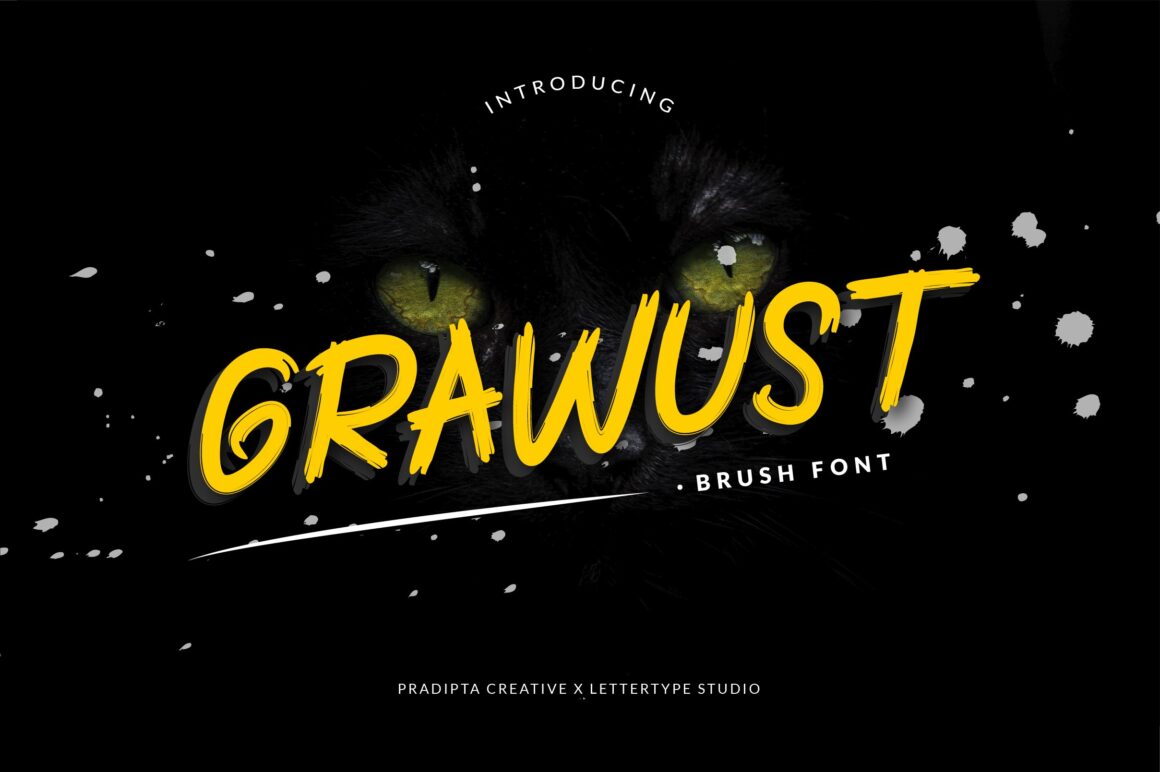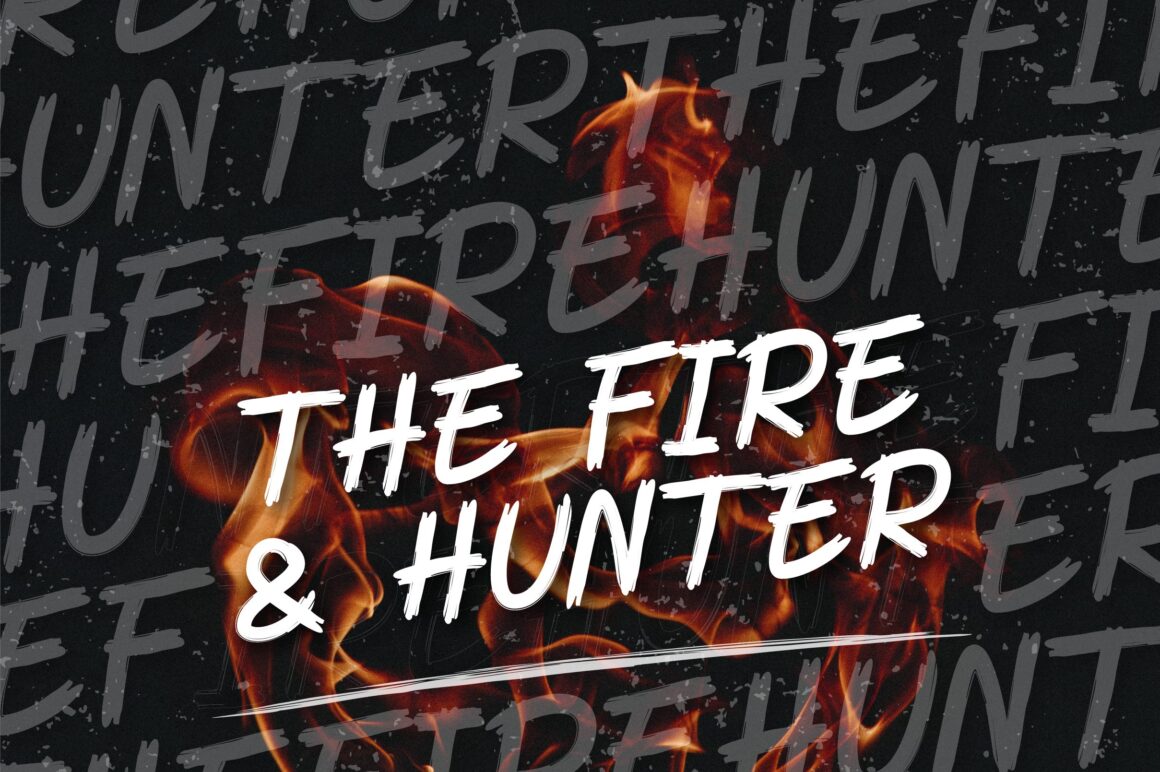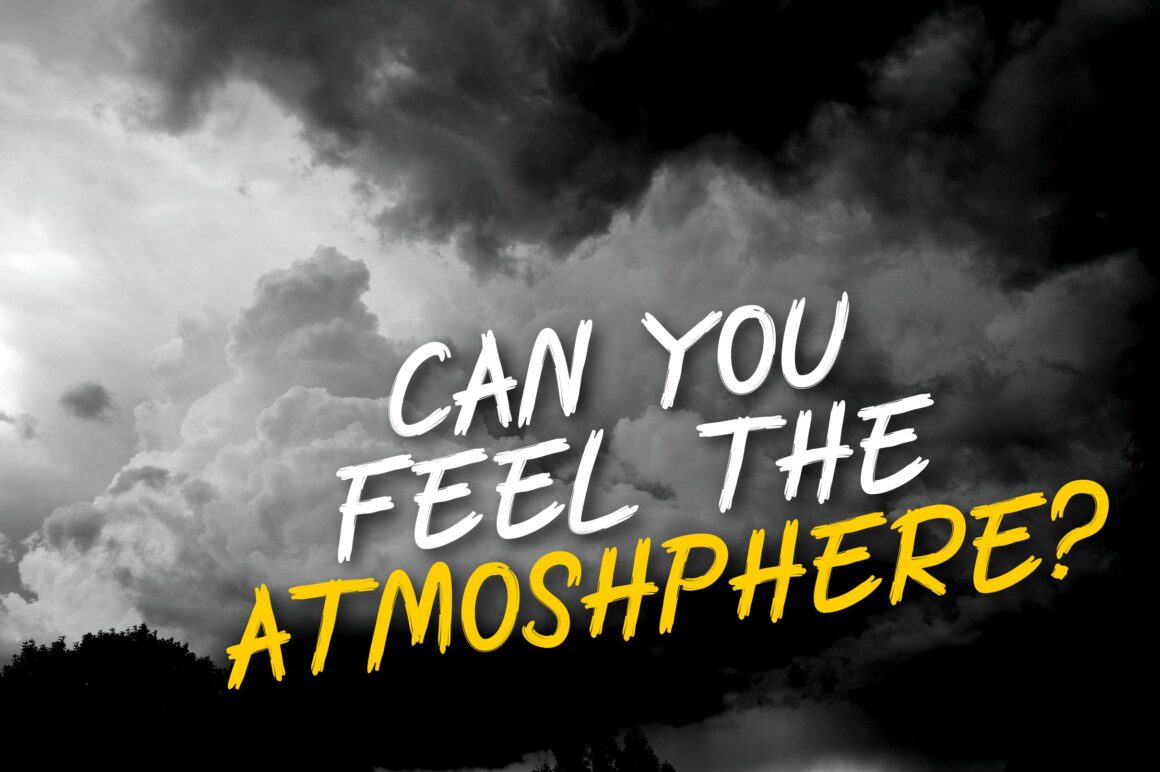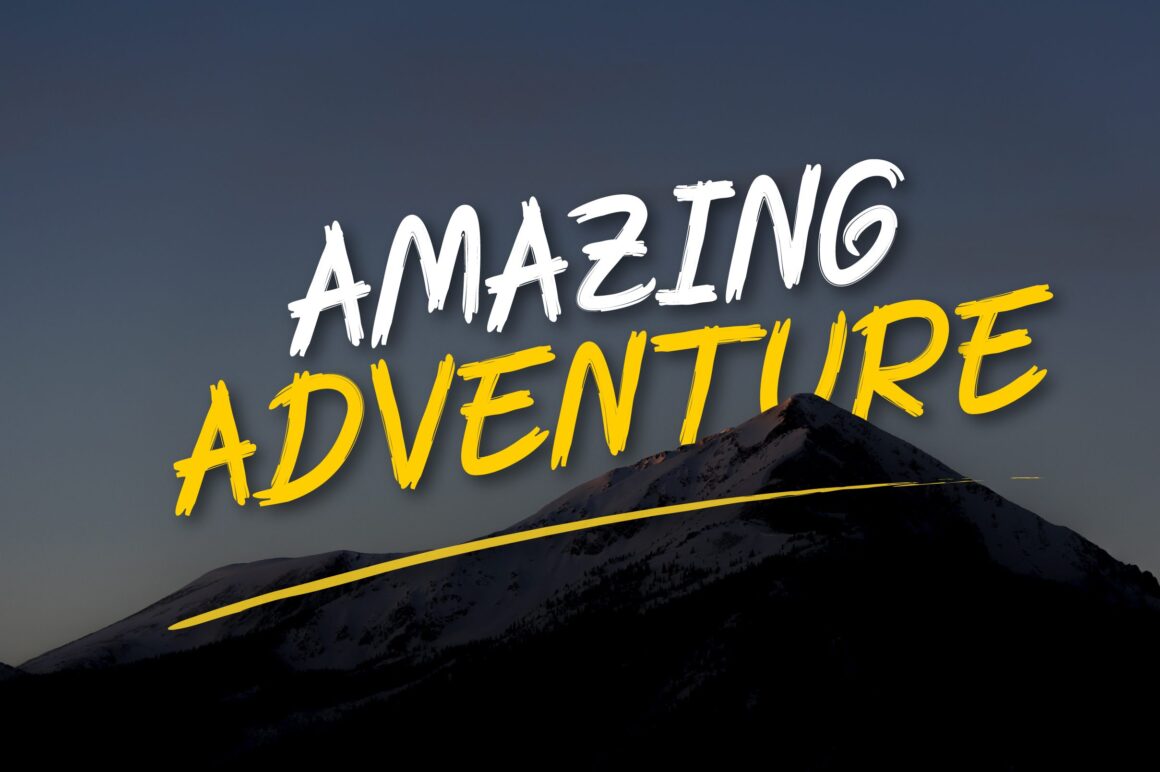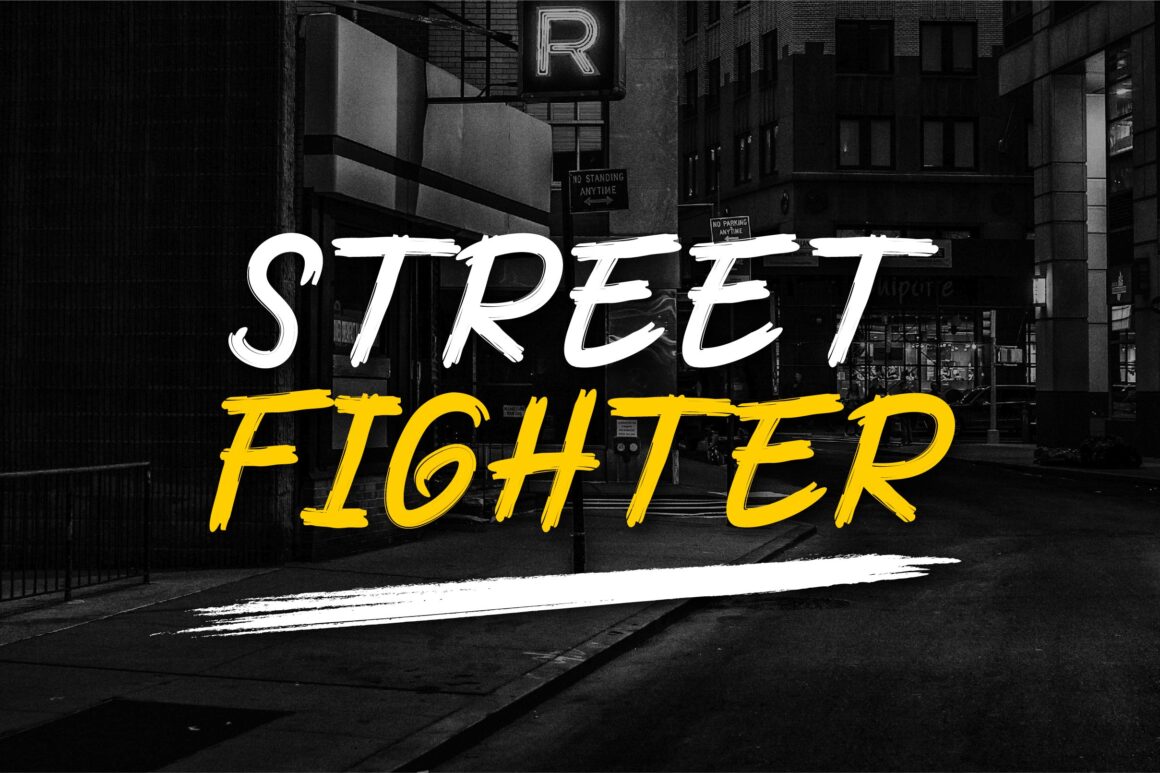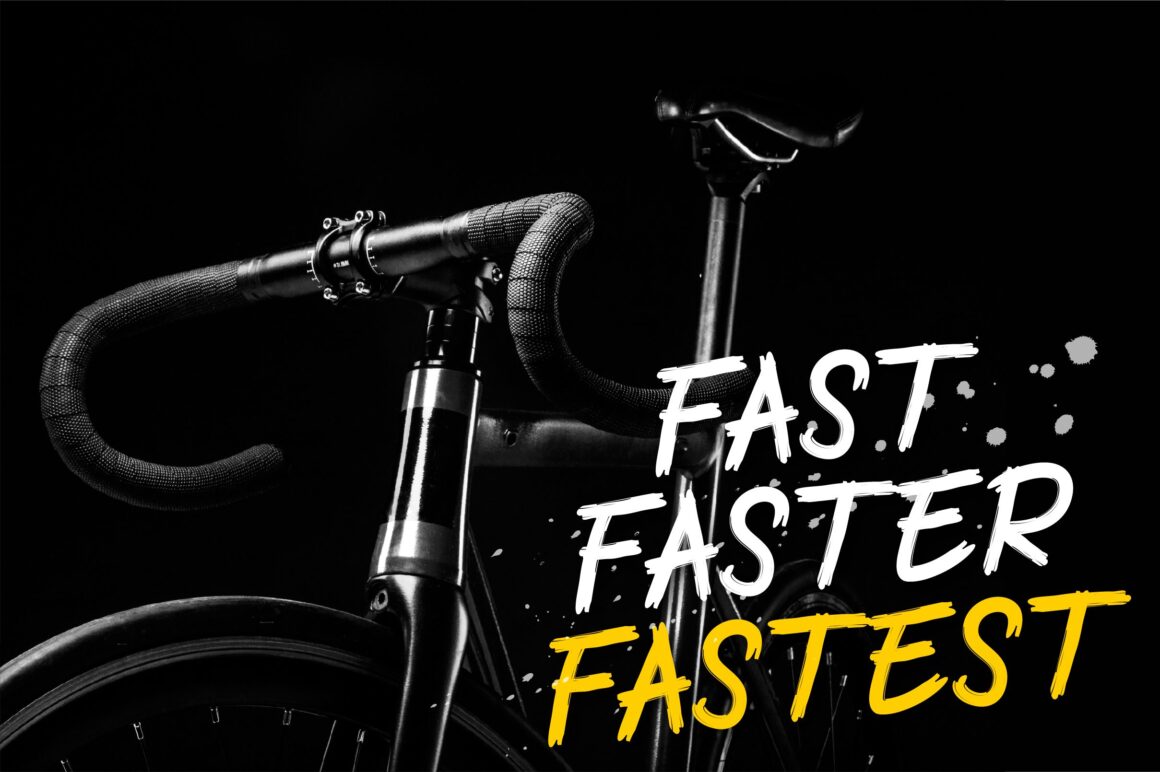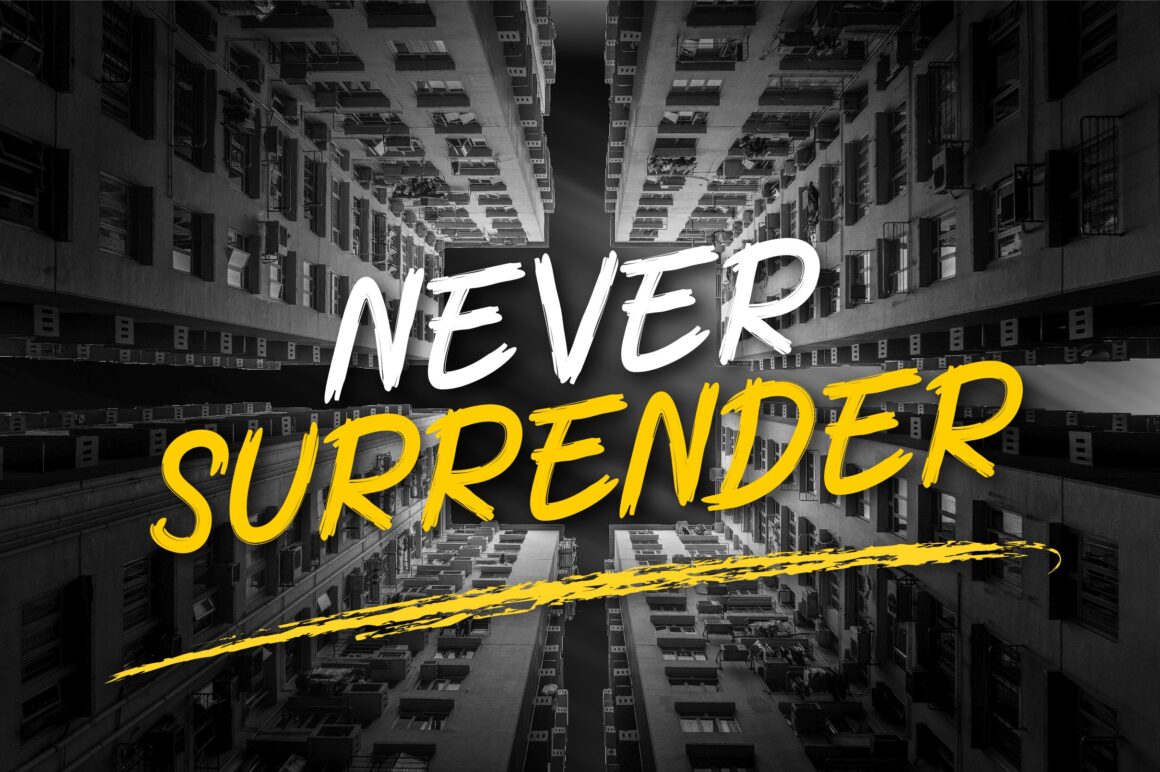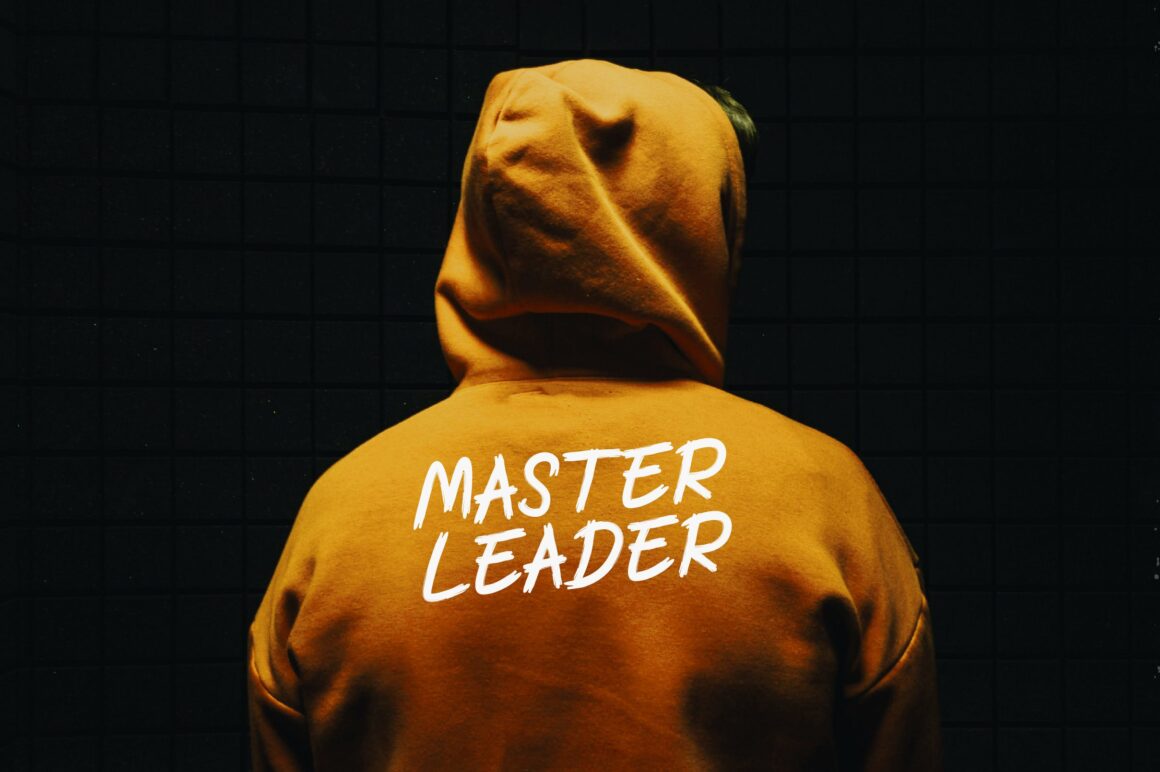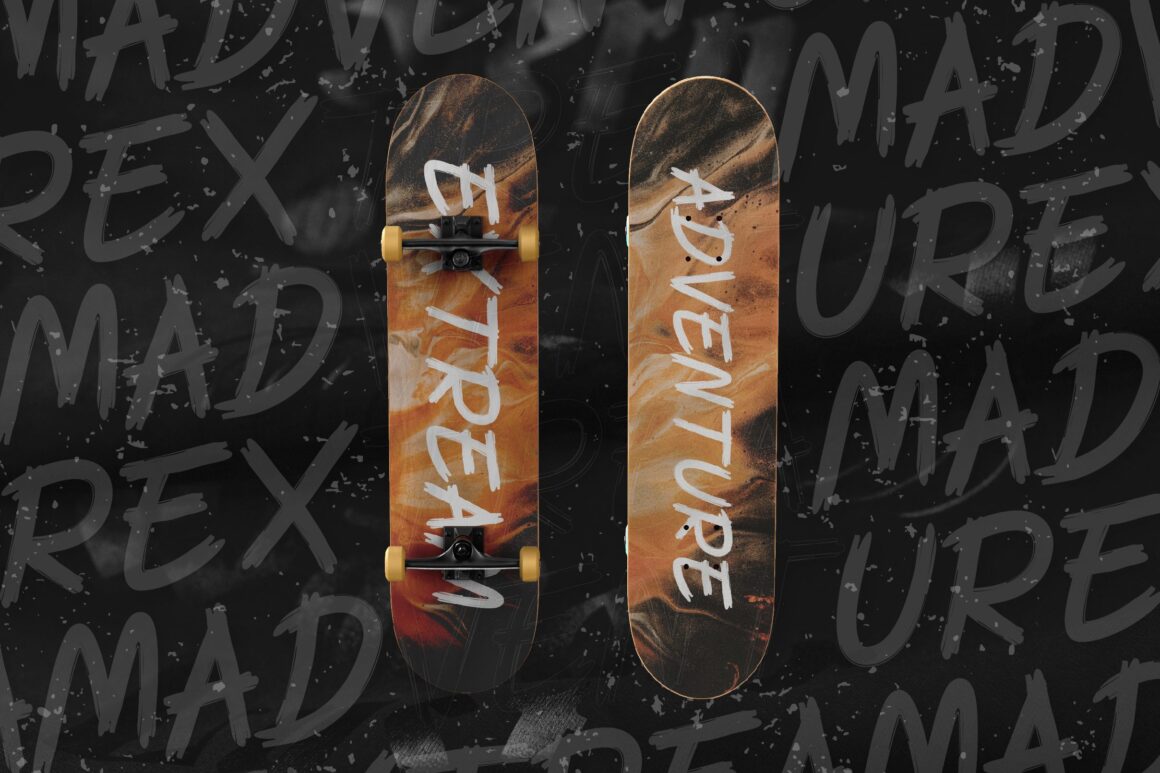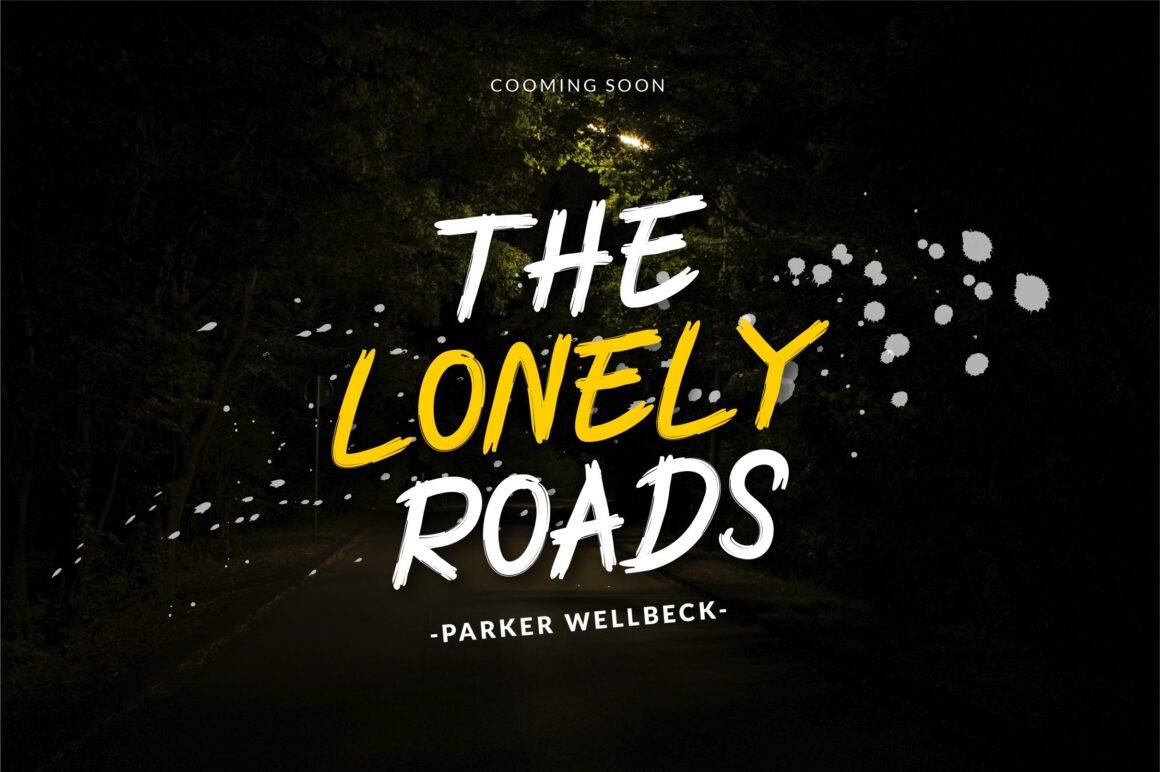
Grawust
Grawust Brush Font is a bold and energetic typeface designed with inline striping and a modern brush style. Its eye-catching strokes make it perfect for adding power and creativity to your projects, from dynamic logos to standout posters and packaging. Complete with uppercase letters, numbers, punctuation, and symbols, it’s built for versatility.
Ideal for branding, apparel design, film titles, wedding projects, social media graphics, invitations, and more, Grawust Brush delivers a handcrafted feel with a modern edge. Whether used for bold headlines or stylish creative work, this font ensures your designs grab attention with confidence and flair.
Grawust Features:
• 1 Styles
• Upright Only
• 169+ Languages Supports